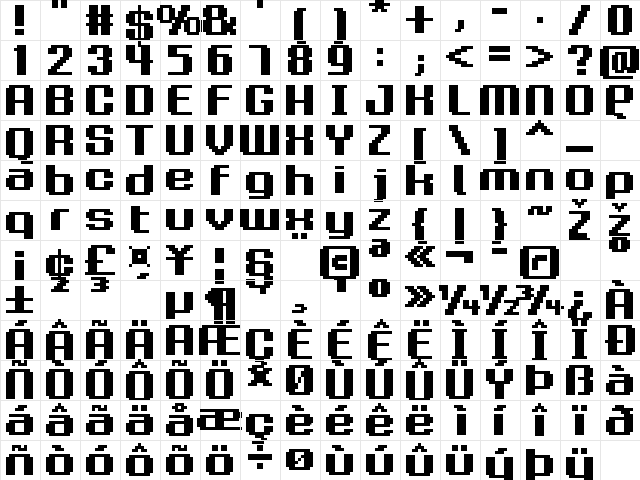
FFF Family Regular
| Foundry | Fonts For Flash |
| Designer | Fonts For Flash |
Design Context for FFF Family Typeface
FFF Family takes a measured approach to typography — its balanced proportions and neutral character make it a reliable workhorse for both digital and print work.